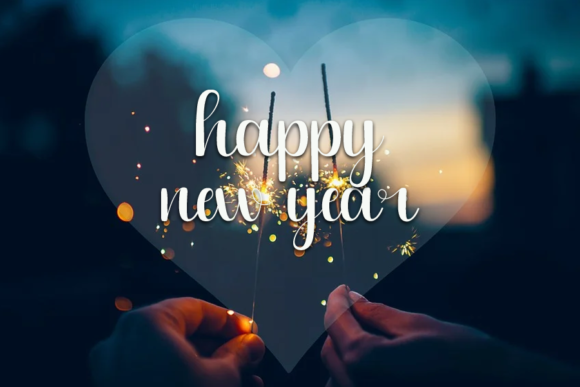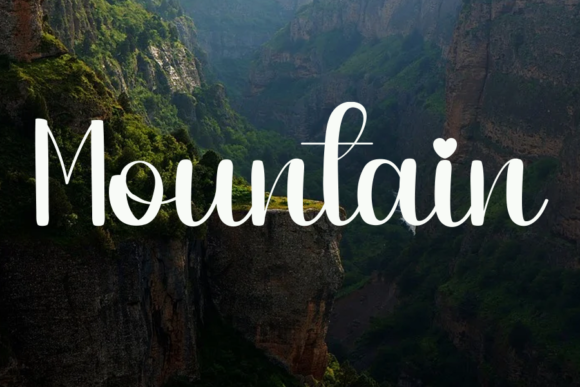
Camelia Font
db-ku.com - Script & Handwritten -- Camelia is a clean, easy-to-read, and delicate handwritten font. This font was particularly crafted for those who need a beautiful and refreshing look to their designs.